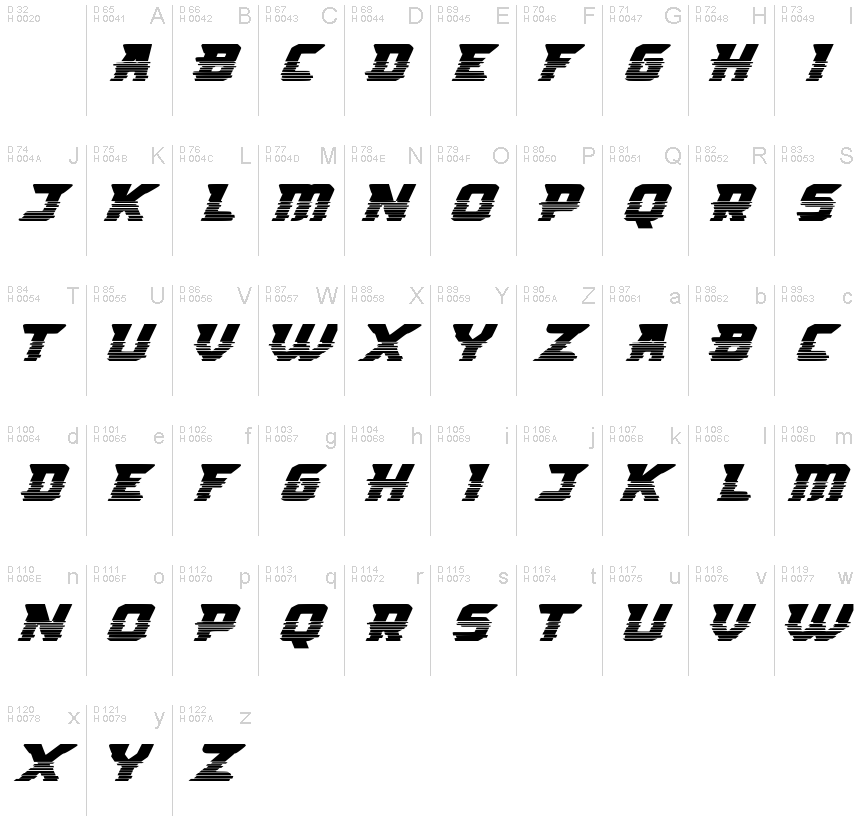
Big Runner Regular
Big Runner, a bold and dynamic font created by Addcut, exudes a captivating techno-inspired aesthetic. Its distorted and striking letterforms command attention, evoking a sense of futuristic energy and industrial edge. The font's weight and visual impact make it an impactful choice for headings, titles, and branding elements that demand a powerful, attention-grabbing presence.
Versatile and adaptable, Big Runner's distinctive style lends itself well to a wide range of applications. Its bold, eye-catching nature makes it an excellent fit for modern, tech-savvy designs, from digital interfaces and app UI to dynamic event posters and product packaging. The font's unique character also allows it to seamlessly integrate into bold, experimental design projects that seek to push the boundaries of traditional typography.